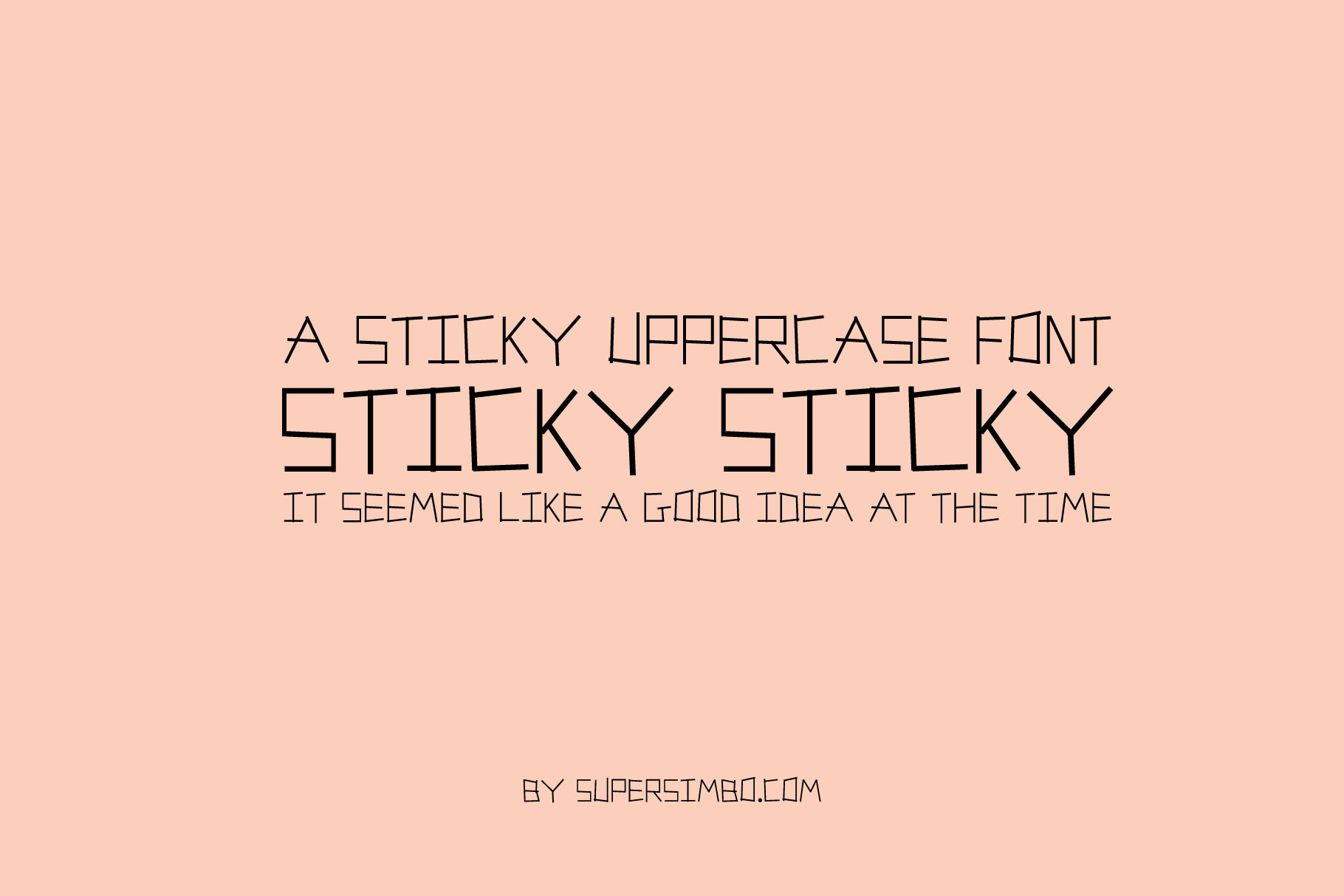
Sticky Sticky | Display Font
Sticky Sticky is inspired by the curious and experimental process of forming words with sticks as seen in the playgrounds and village greens inhabited by primary school children...
Our son was recently doing this with his school class as a way to learn the spellings of short words and also, it's just fun right?